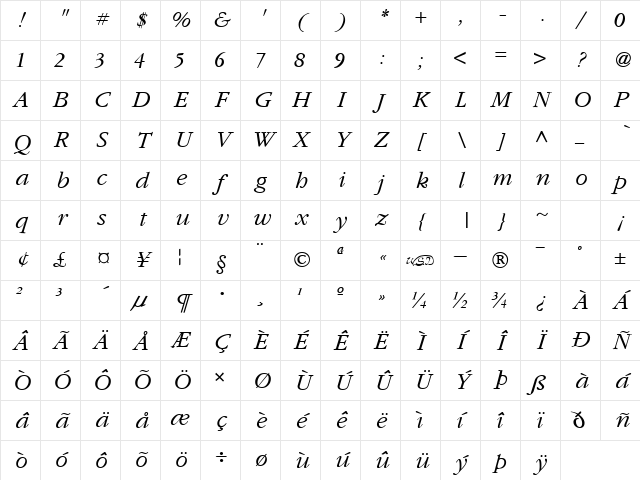
Garnet kursiv
Style: kursiv
Garnet Family
Garnet kursiv
Design Context for Garnet
Garnet is a composed and adaptable typeface that performs quietly and consistently across a wide range of design contexts. The slanted form adds forward momentum and visual energy.